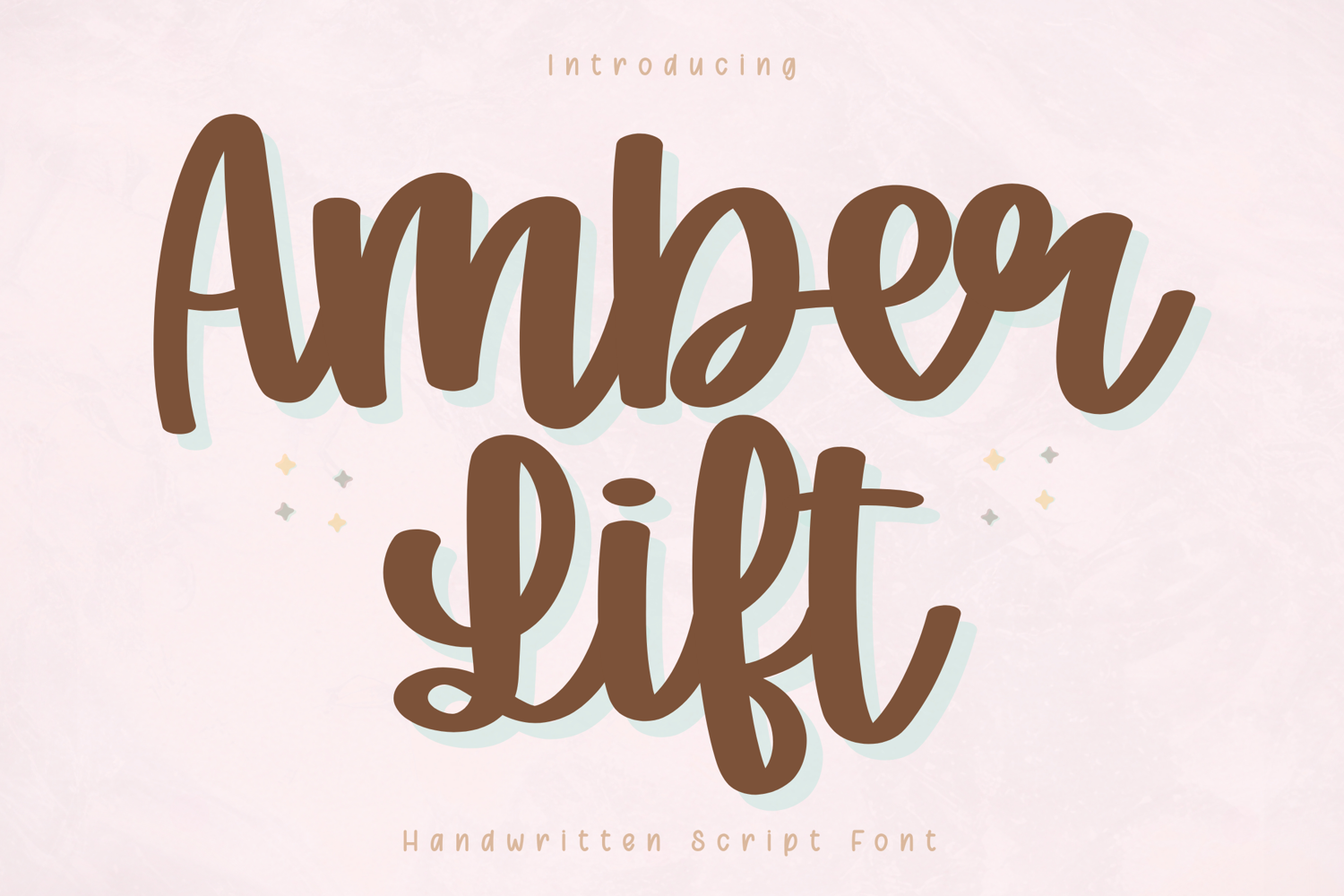
Amber Lift - Handwritten Script Font
Amber Lift – Handwritten Script Font
Amber Lift is a warm and modern handwritten script font designed to bring a clean yet cozy feeling to your designs. With its smooth strokes and natural flow, this font creates a soft and friendly look that feels both stylish and approachable.
Perfect for a wide range of creative projects, Amber Lift works beautifully for branding, logos, social media, digital planners, and everyday design use. Its balanced and easy-to-read style makes it versatile while still maintaining a natural handwritten charm.
Key Features:
Full set of uppercase and lowercase letters
Numerals, punctuation, and symbols
Ideal For:
Cricut and cutting projects
Digital planners
Stickers and printable designs
Branding and logos
Social media graphics
Amber Lift is designed with smooth and balanced letterforms, making it easy to use across both decorative and professional projects.